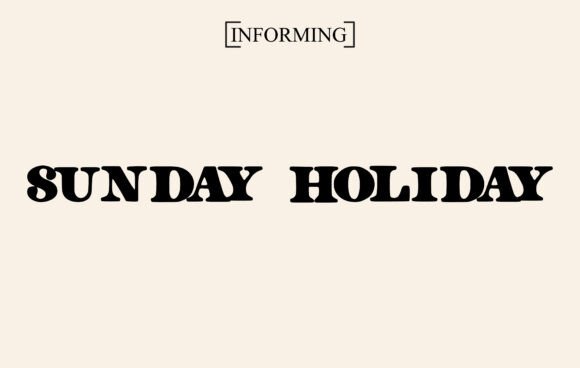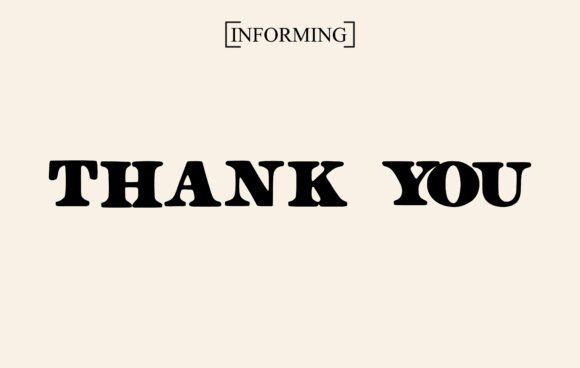
Introduction to Renaldi Font
As a designer, you’ve been there – staring at a blank canvas, trying to bring your creative vision to life. The words “just one more font” echo in your mind as you scour through endless options, searching for that perfect fit. But what if I told you that there’s a font that’s about to become your go-to companion for all your design projects?
Enter the Renaldi Font, a game-changing addition to your design arsenal. With its legibility and versatility, this font is poised to elevate your creative ideas to new heights. Whether you’re working on a magazine headline, a wedding invitation, or a social media campaign, the Renaldi Font has got you covered.
Key Features of Renaldi Font
- High-quality design: Renaldi Font offers a unique blend of modern and elegant styles, perfect for creative projects.
- Transparent background: The font’s transparent background makes it ideal for use on images or videos with complex backgrounds.
- High-resolution design: Renaldi Font is designed at 300 DPI, making it suitable for use in high-resolution designs and printing applications.
- Unique characteristics: The font features a distinctive, hand-drawn feel and a wide range of glyphs, making it perfect for creative projects that require a unique touch.
Honest Review: Renaldi Font
I recently stumbled upon the Renaldi Font, and I must say it’s been a game-changer for my creative projects. The font’s sleek and modern design makes it perfect for anything from a simple logo to a full-fledged branding campaign.
- What works well: ✨ The font’s high quality and versatility make it an excellent choice for any creative project. It’s free to download, which is always a bonus!
- What works well: ✨ The font also features a transparent background, making it easy to use in a variety of design contexts.
However, there are a few limitations to consider. ⚠️ The font’s character set is limited, which may not be ideal for projects that require a wide range of characters.
Overall, I’m really impressed with the Renaldi Font. It’s a great addition to any design resource library, and I’ve already used it in several of my recent projects.
Tips for Getting the Most Out of Renaldi Font
To get the most out of the Renaldi Font, use it with a transparent background to add depth and visual interest to your design. You can also experiment with different font sizes and styles to create a unique look.
The Renaldi Font is a high-quality design resource that can be used in a variety of creative projects, including:
- Business cards and brochures.
- Social media graphics and posts.
- Infographics and presentations.